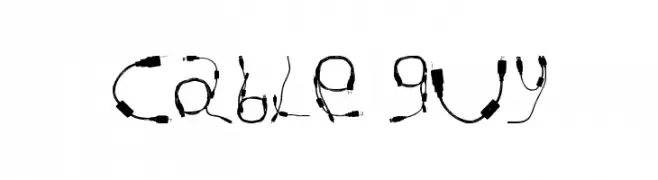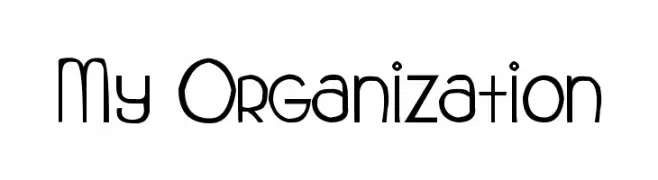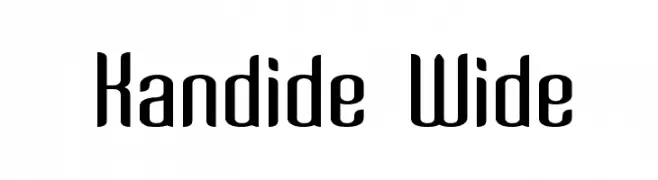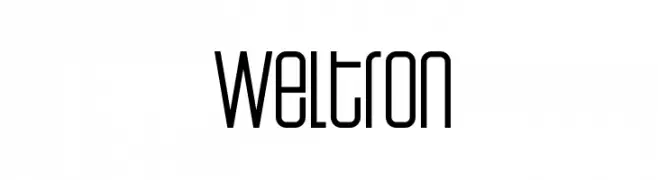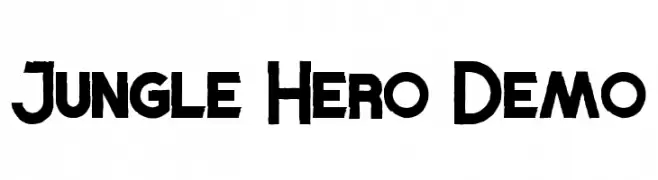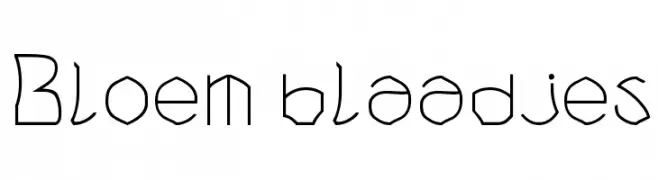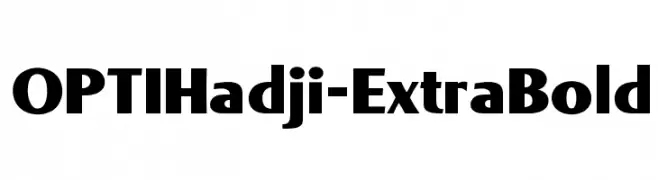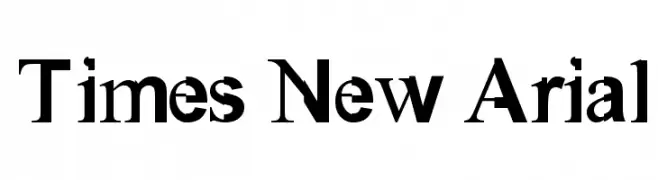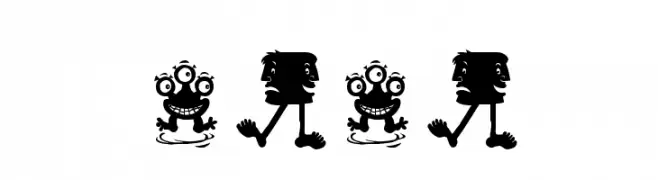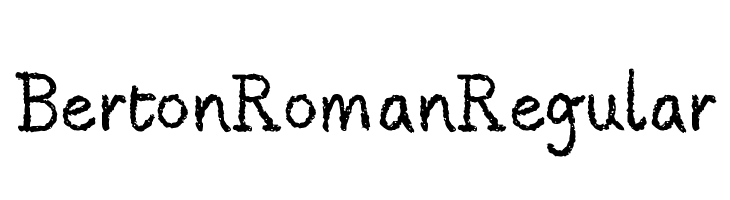
A bold, geometric font with strong lines and modern appeal.
A modern, geometric sans-serif font with a clean and professional look.
A rugged, textured font with a handcrafted, wooden appearance.
A modern, wide font with rounded edges and consistent character spacing.
A bold, italicized font with high contrast and a modern, dynamic style.
A bold, rugged font with a hand-drawn, adventurous style.
A delicate, flowing script font with elegant curves and a handwritten style.
A decorative, playful font with geometric and organic elements.
A graceful, cursive script font with a handwritten style.
A refined serif font with elegant, light-weight characters.
An elegant serif italic font with graceful curves and refined serifs.
A bold, modern font with strong, thick strokes and a commanding presence.
A bold, italic, and modern typeface with medium contrast and slightly condensed characters.
A bold serif font with high contrast and sharp serifs, blending traditional and modern styles.
A smooth, rounded sans-serif font with a friendly, hand-drawn appearance.
A playful and quirky font with bold, rounded strokes and irregular letterforms.
A bold, geometric font with thick, uniform strokes and a modern aesthetic.
A bold, playful handwritten font with thick, rounded strokes.
A bold, playful font with dynamic, whimsical characters.
A playful and whimsical font with dynamic curves and sharp edges.
Cartoonish dingbat font with quirky, walking characters.
A bold, angular serif font with a modern edge.
A bold, decorative font with shadow-like embellishments and a hand-carved appearance.
A bold, playful font with a hand-drawn, distressed style.